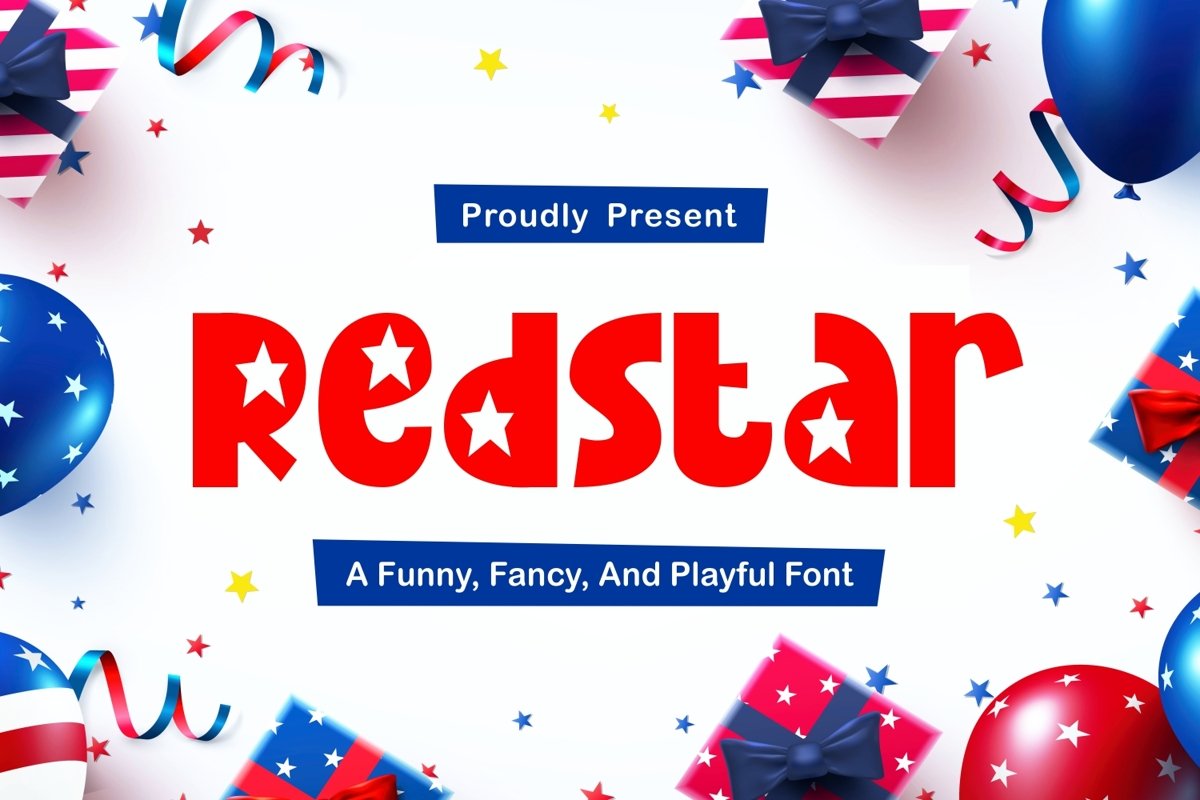
Redstar is a bold san serif display come with playful themes. Some characters have star shapes. It matches applies in some designs such as the logotype, brand, packaging, quotes, poster, kids shirt, cover book, birthday invitation and more custom design. The features uppercase, lowercase, numeral, punctuation & symbol, multilingual support, PUA encoded (fully accessible without additional design software).